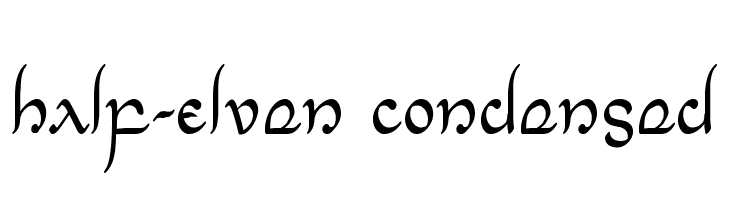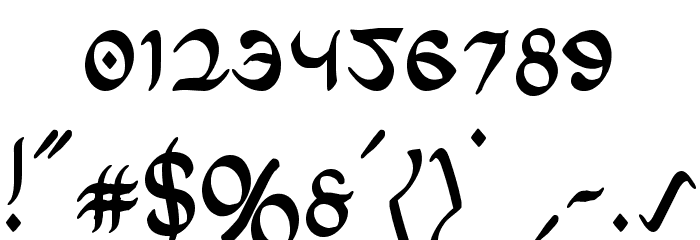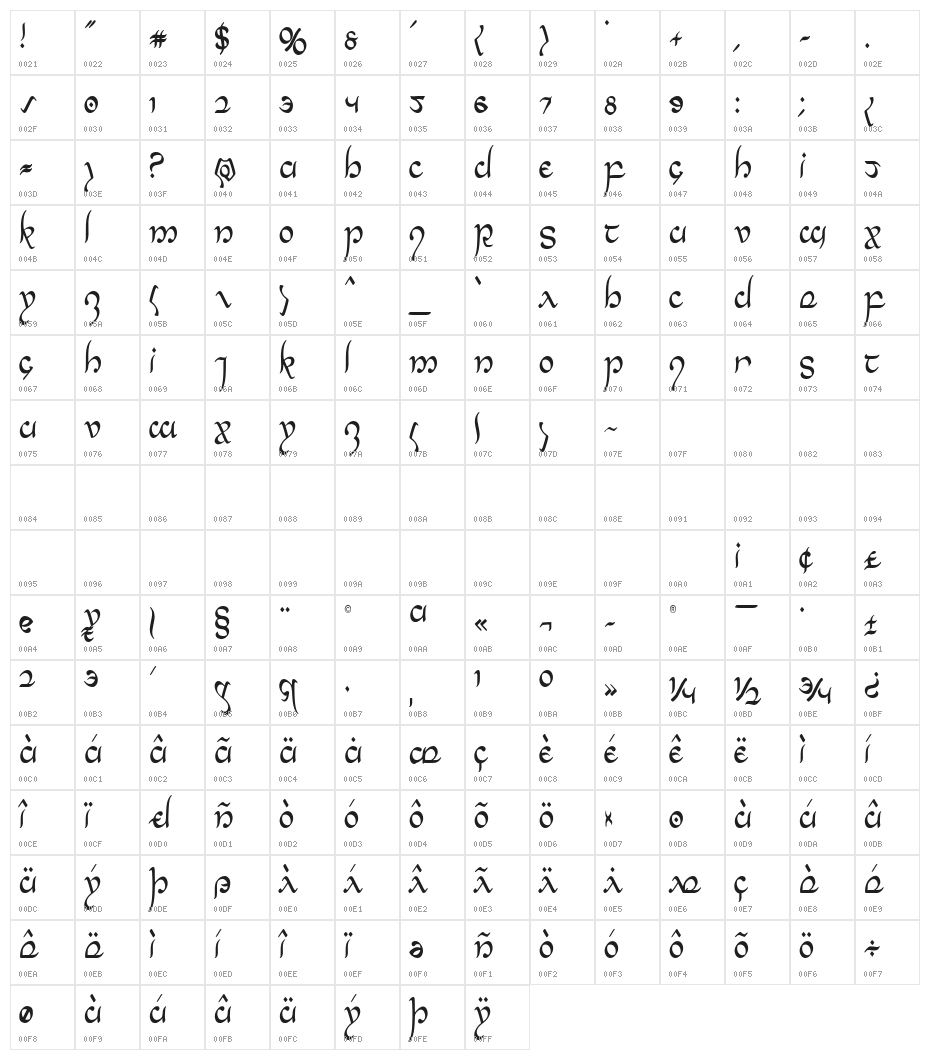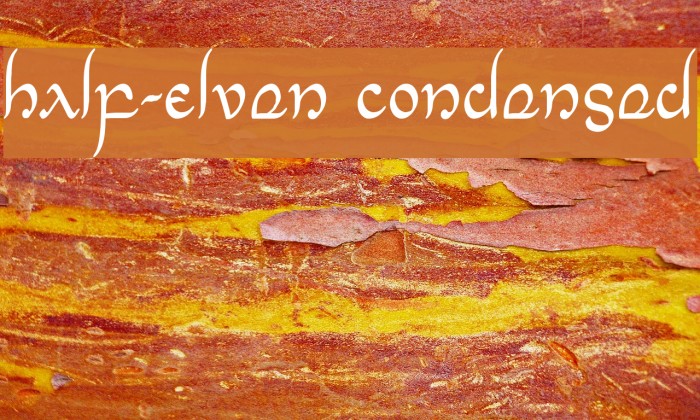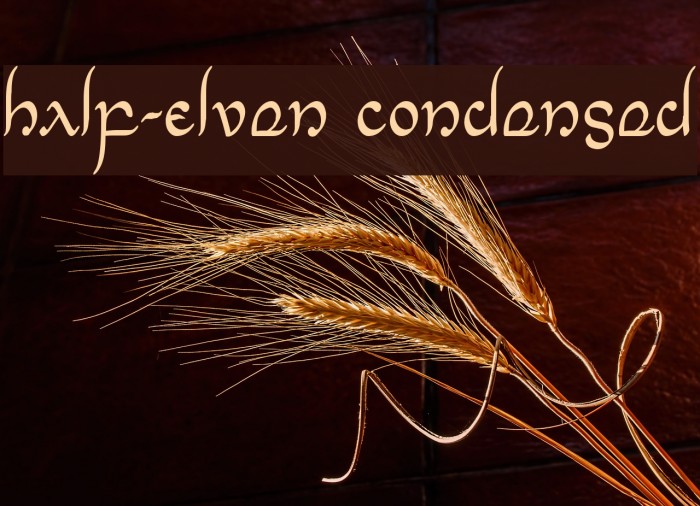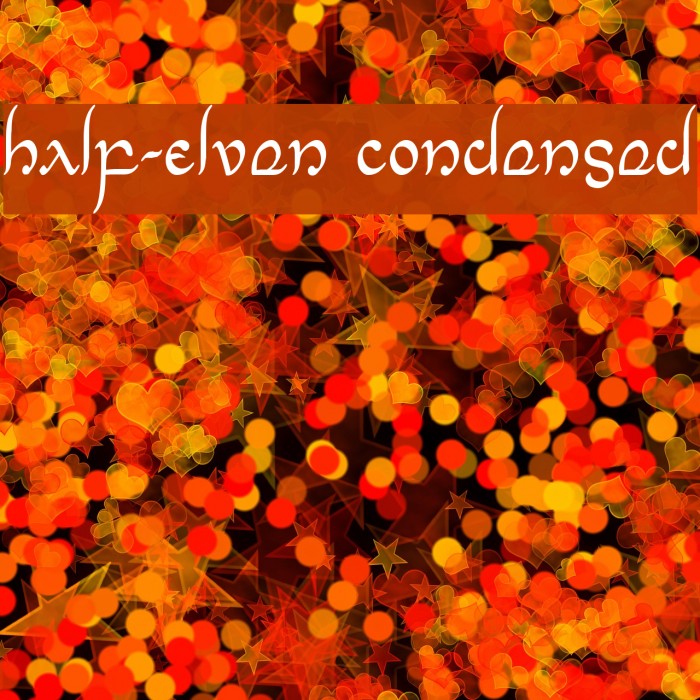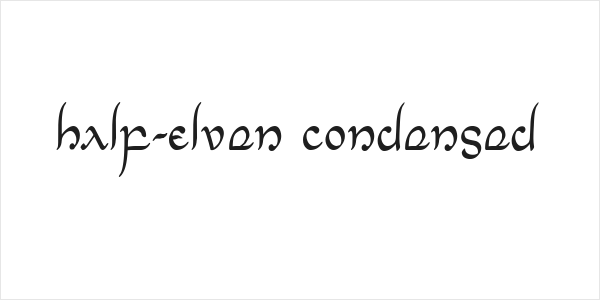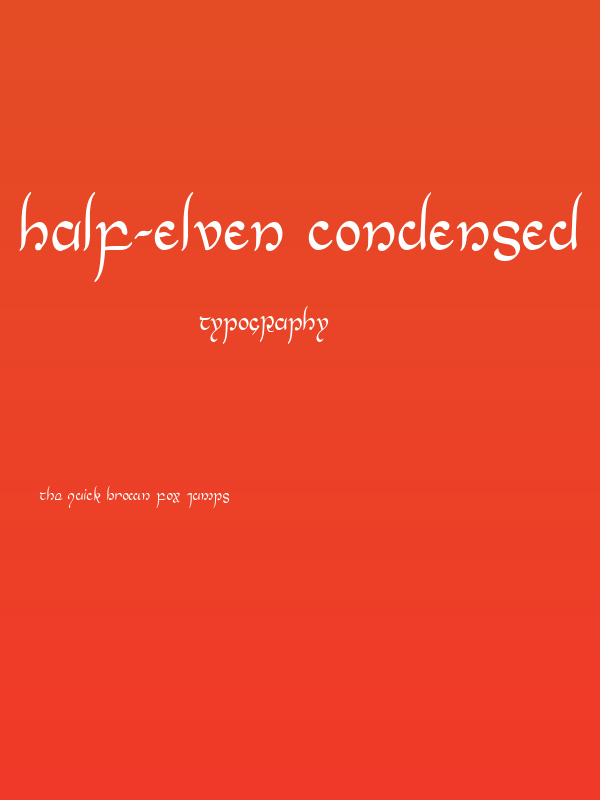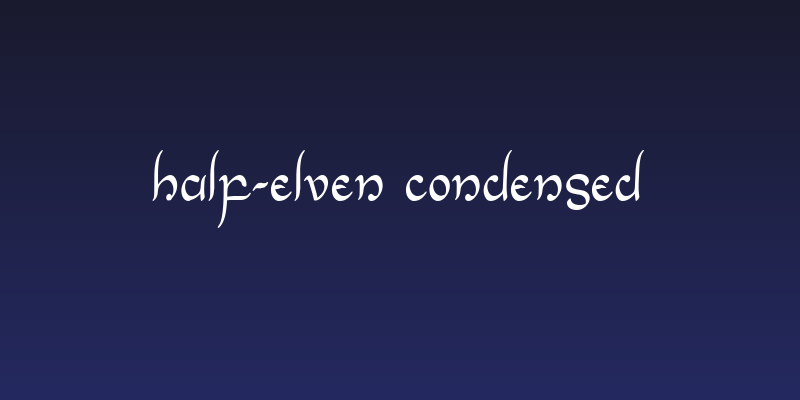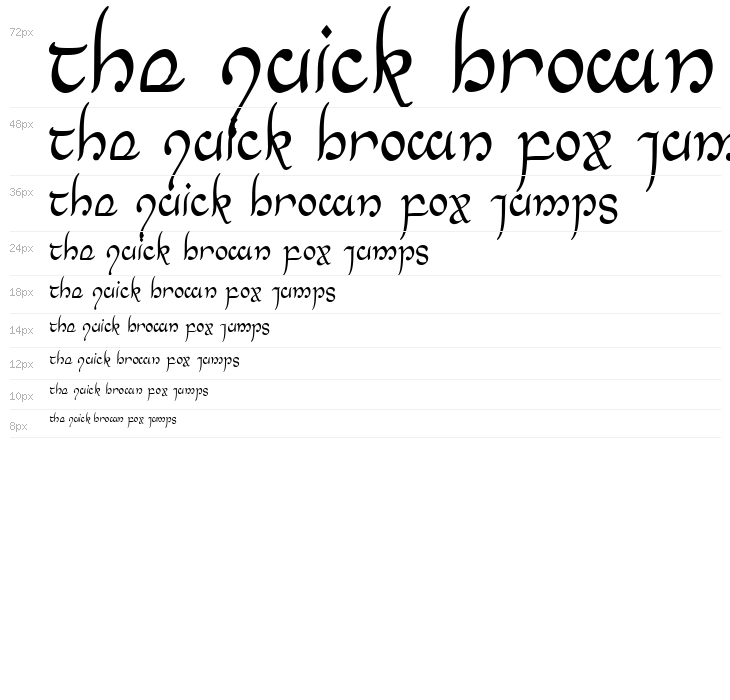
Half-Elven Condensed Font
Half-Elven Condensed Description
This font features a unique, decorative style reminiscent of fantasy and elven aesthetics. The characters are elegantly curved with a flowing, organic feel, incorporating both sharp and smooth elements. The uppercase and lowercase letters maintain a consistent style, with distinctive flourishes that add to its mystical appearance. Numbers and special characters are designed to match the overall theme, ensuring a cohesive look. The condensed nature of the font allows for efficient use of space while maintaining readability.
| Overall Style | Fantasy, Decorative |
| Proposed Projects | Ideal for fantasy-themed projects, book covers, game titles, or any creative work requiring a mystical or magical touch. |